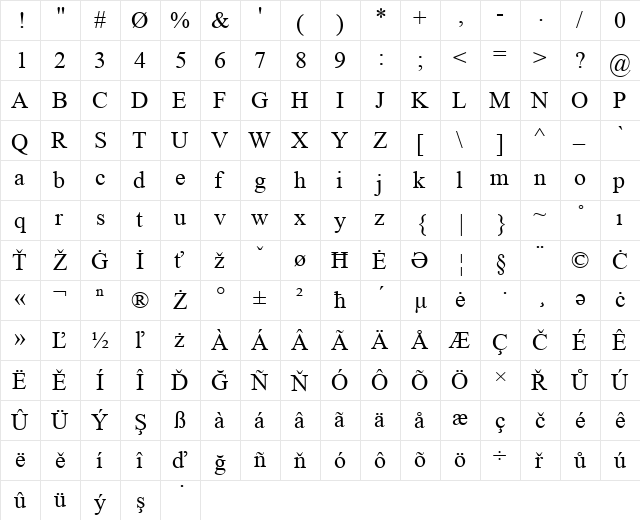
Casy EA Regular
Design Context for Casy EA Typeface
Casy EA offers clean, dependable letterforms without strong stylistic allegiance, making it a practical choice for designers who need flexibility.